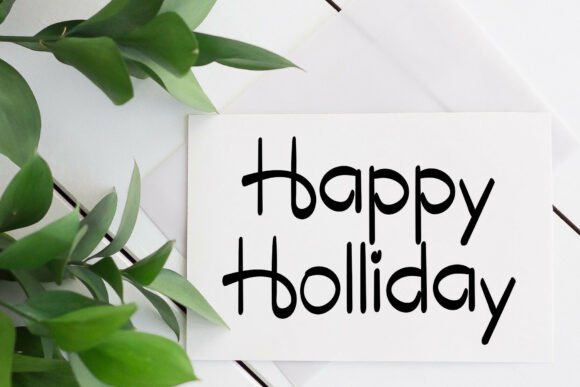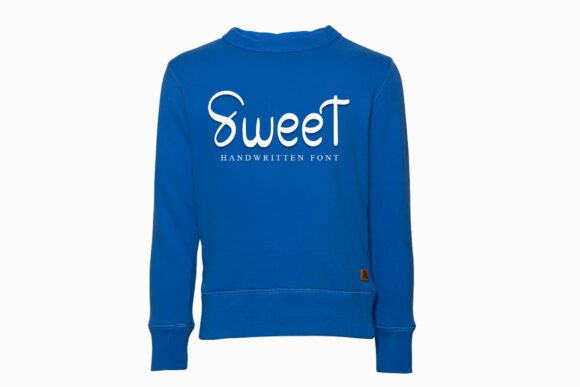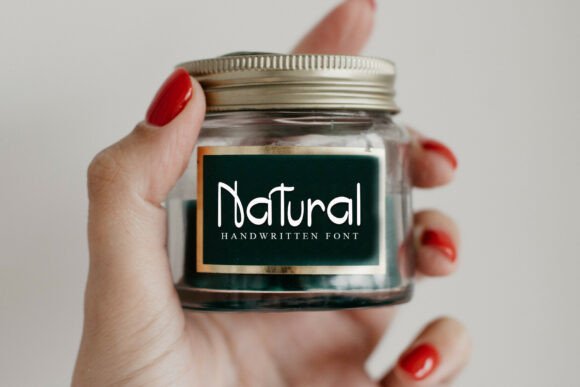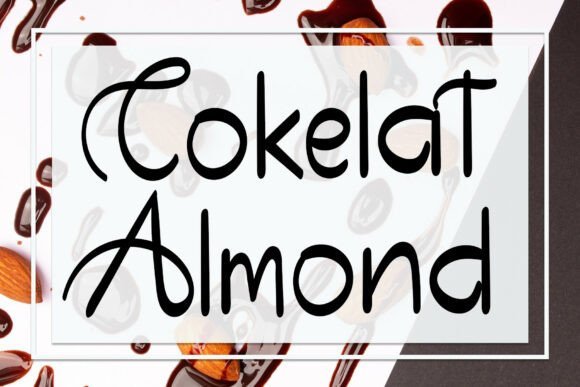
Introduction to Cokelat Almond Font
Cokelat Almond is a whimsical and charming handwritten font with an artistic twist.
Featuring unique letterforms with playful swirls and exaggerated loops, it adds a fun, creative flair to any project Perfect for bakery branding, product packaging, or kids-themed designs, this font brings warmth and friendliness in every character.
Key Features of Cokelat Almond Font
Why Choose Cokelat Almond Font?